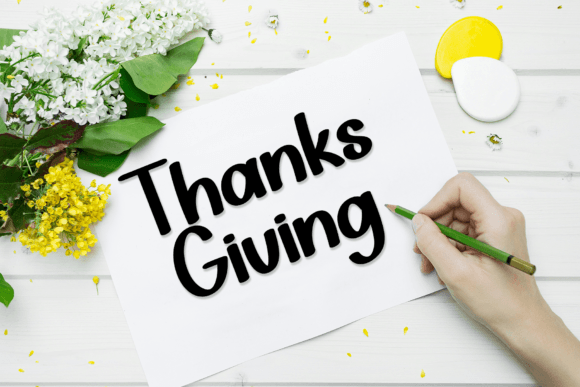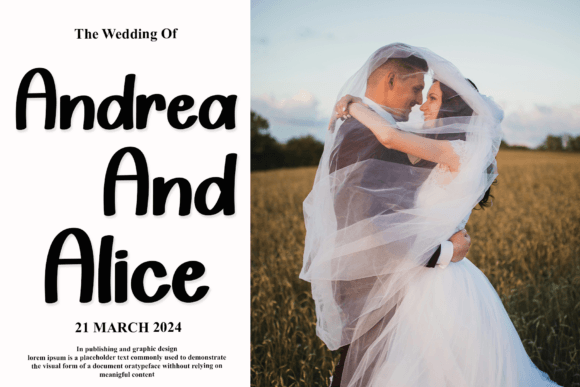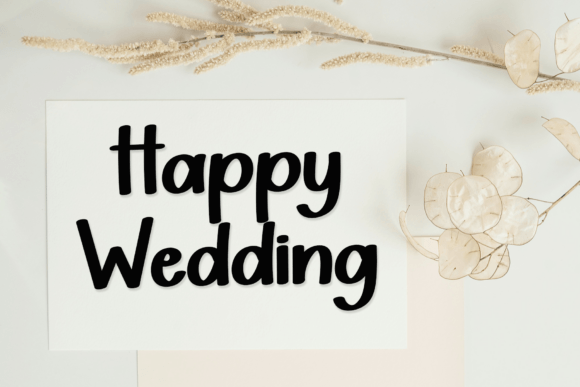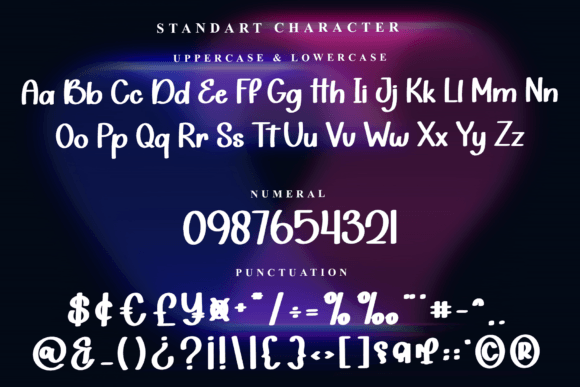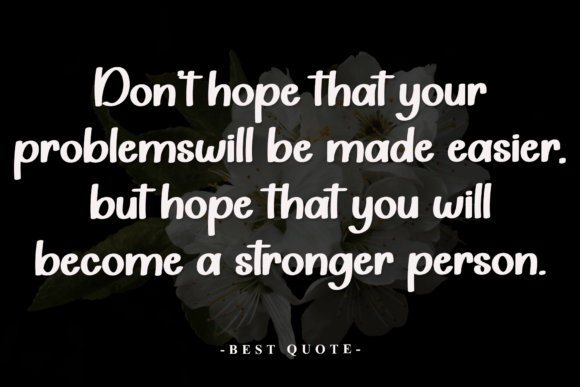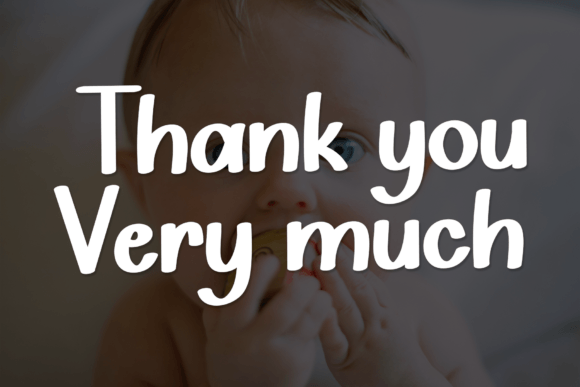
Introduction to Baby Milestone Font
As you sit down to work on a new creative project, flipping through your design resources, you stumble upon that one font that sparks joy and inspiration. For many designers, this moment is a reminder of the magic that happens when the right tools come together. The Baby Milestone Font is one such treasure, a sweet and friendly handwritten font that’s as versatile as it is charming.
With its natural, unique style, the Baby Milestone Font is the perfect addition to any design, from invitations and quotes to nursery decor and social media graphics. Its high quality and transparent background make it a breeze to work with, and the best part? It’s available for free download, making it an invaluable resource for designers of all levels.
Key Features of Baby Milestone Font
- High-quality design: The Baby Milestone Font is designed with precision and attention to detail, ensuring a polished look for any creative project.
- Transparent background: This font features a transparent background, making it easy to customize and combine with other design elements.
- Customizable: This font is designed to be highly customizable, allowing users to adjust the size, color, and style to suit their needs.
- Resolution: The font is designed to be resolution-independent, ensuring that it looks great at any size or resolution.
- Perfect for milestone tracking: The Baby Milestone Font is specifically designed for tracking milestones, making it a valuable resource for parents and caregivers.
Honest Review: Baby Milestone Font
What works well: ✨ The font is incredibly versatile and can be used for a variety of projects, from baby shower invitations to milestone birthdays. The design is clean, modern, and easily customizable. The transparent background makes it easy to overlay on any image or color scheme.
- Modern and clean design
- Only available in a limited number of weights and styles
Use the Baby Milestone Font to highlight important milestones in your child’s life, such as their first birthday or first steps. You can also use it to create custom invitations and party decorations.
The Baby Milestone Font is perfect for any project related to babies and children, including baby shower invitations, baby milestone cards, and nursery decor.